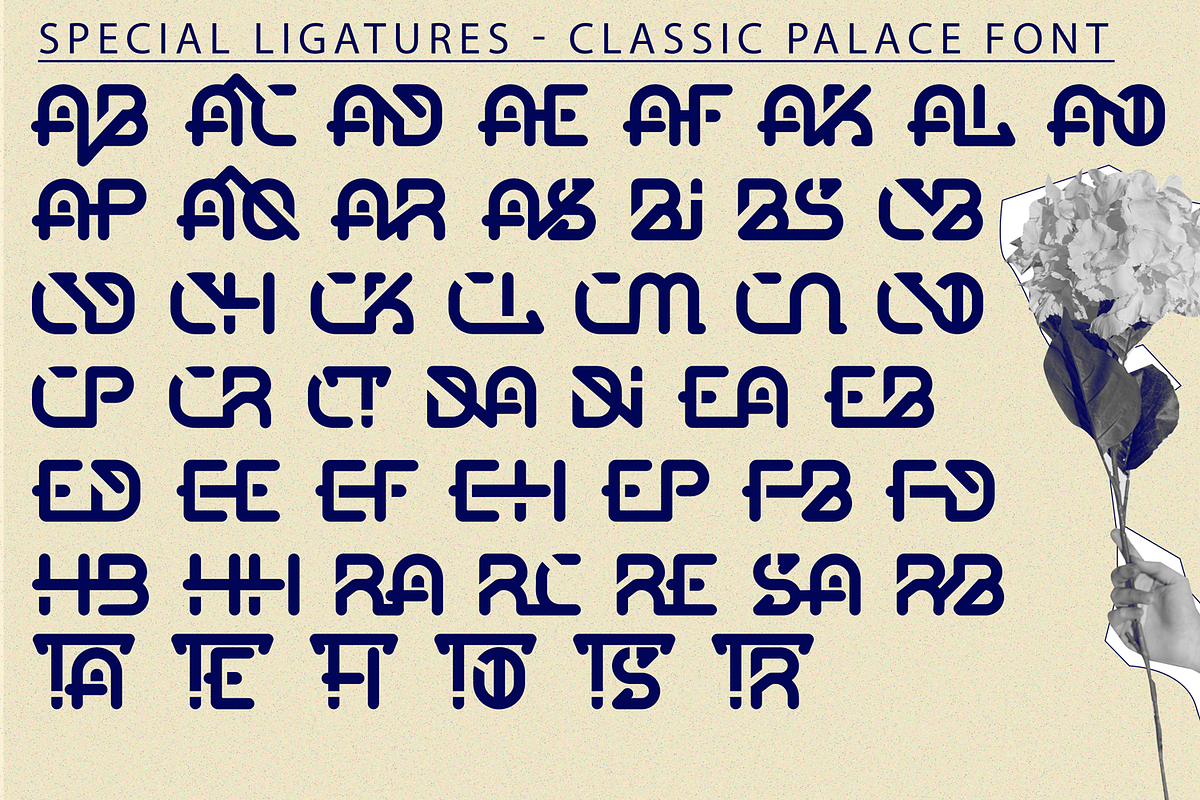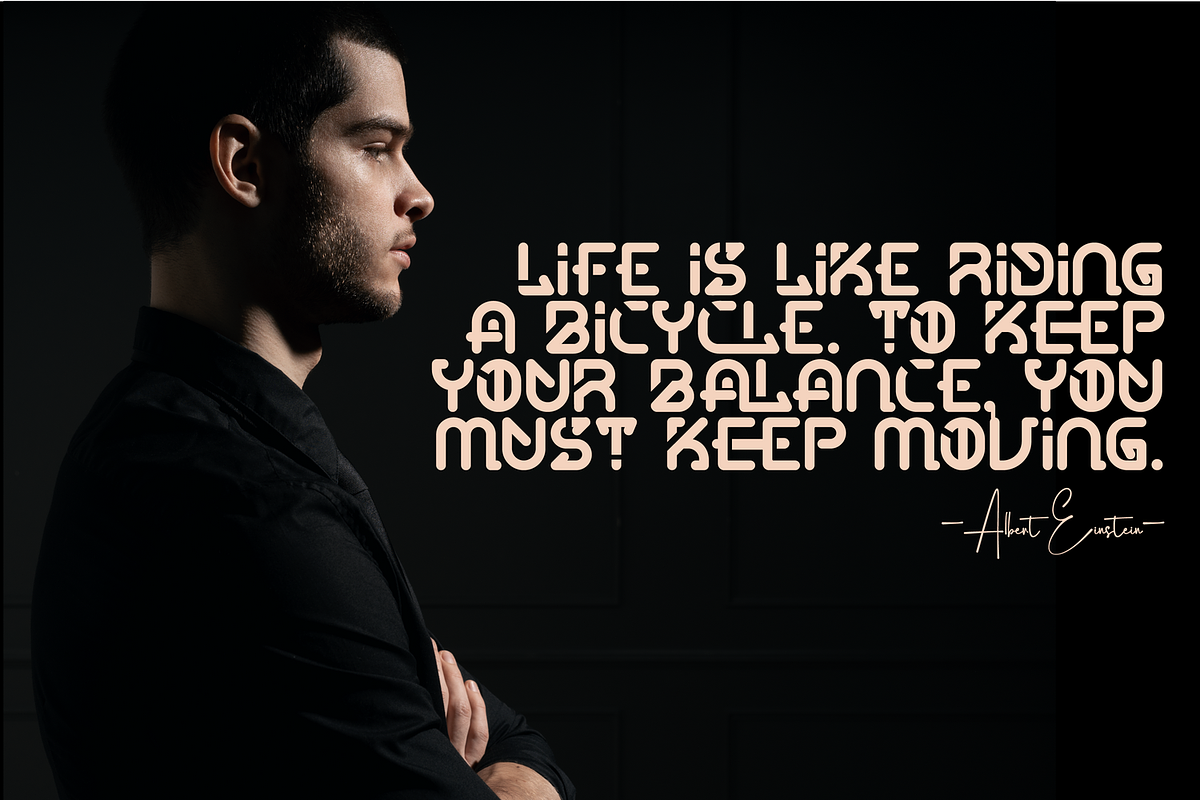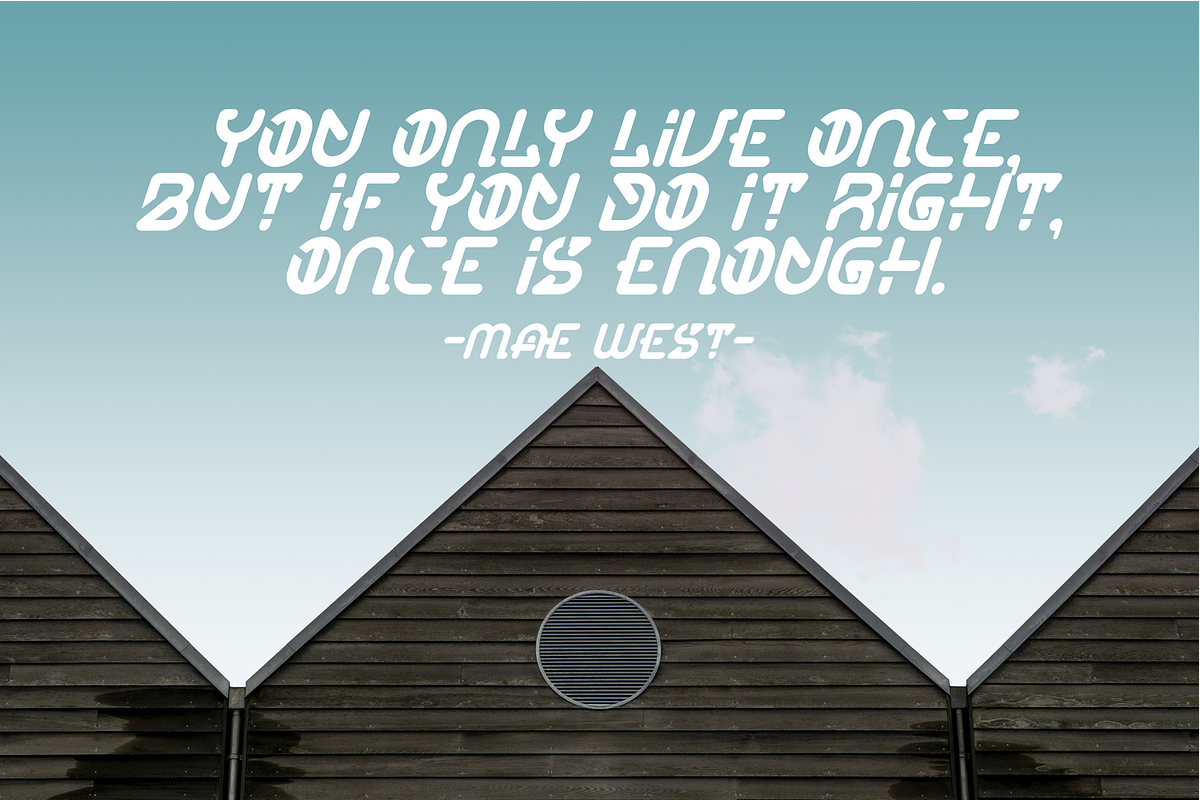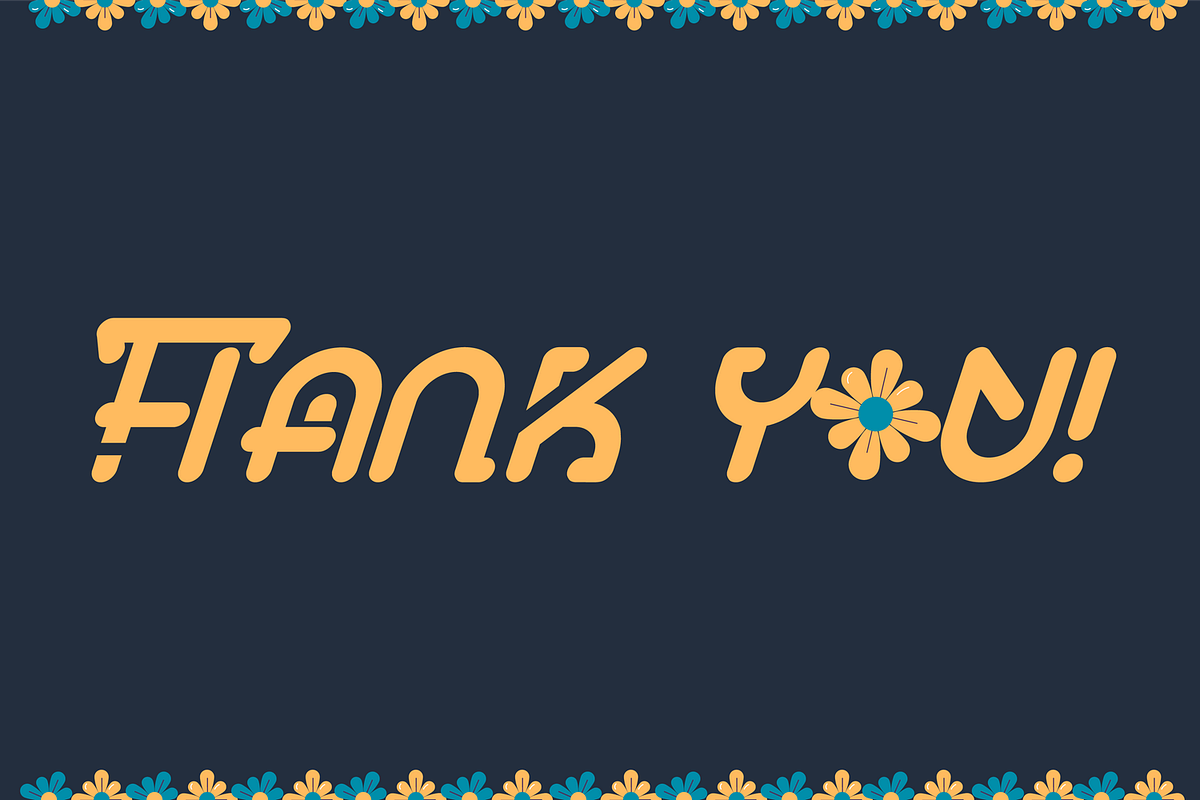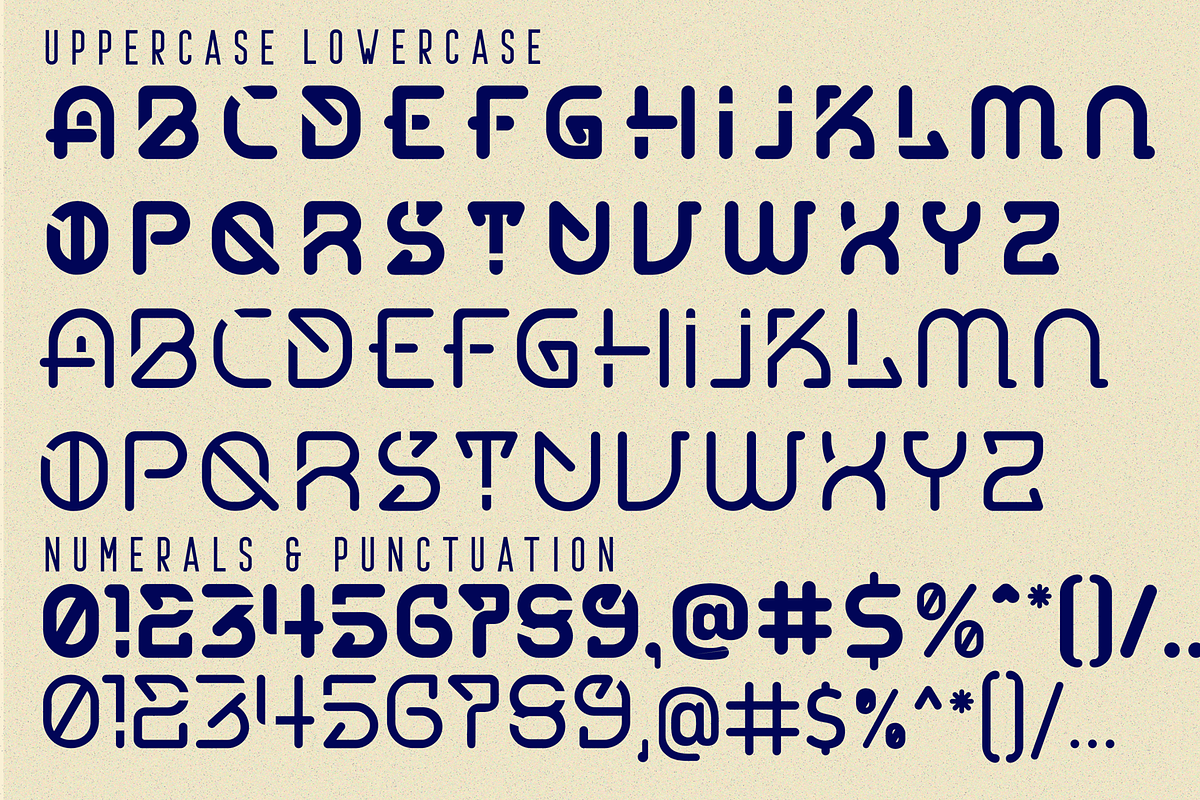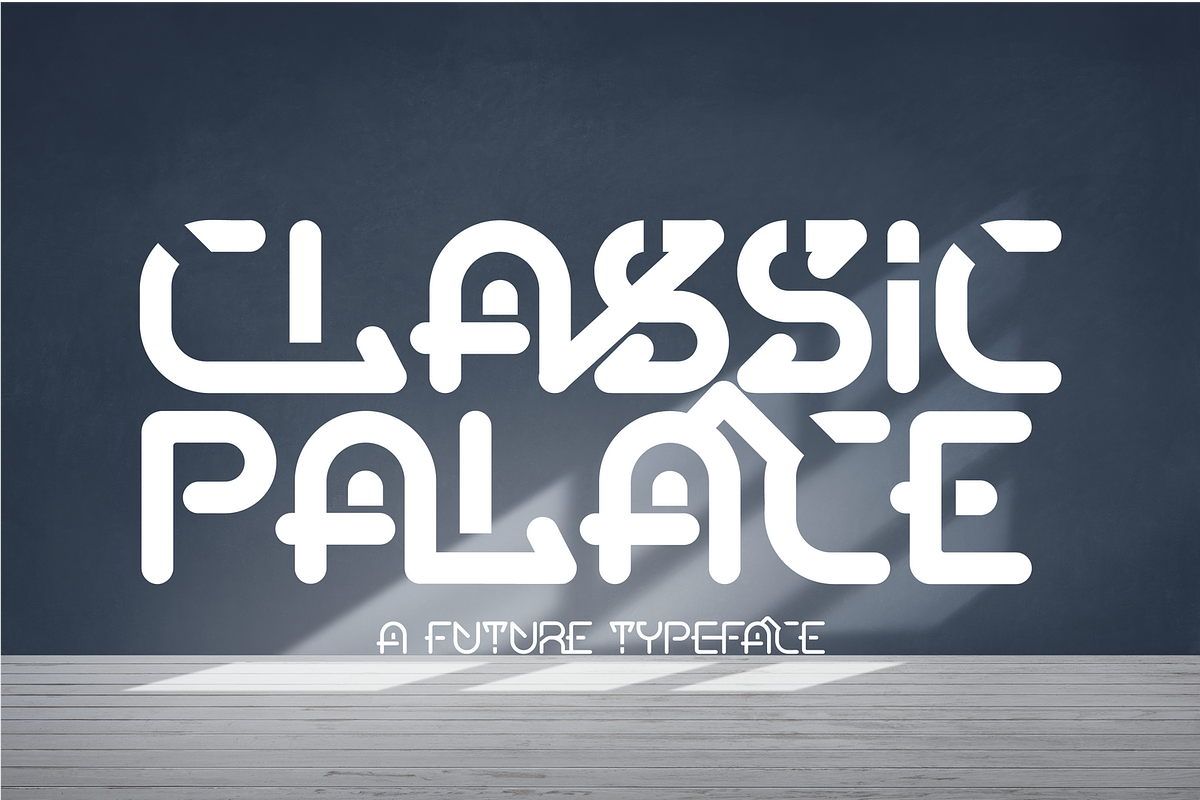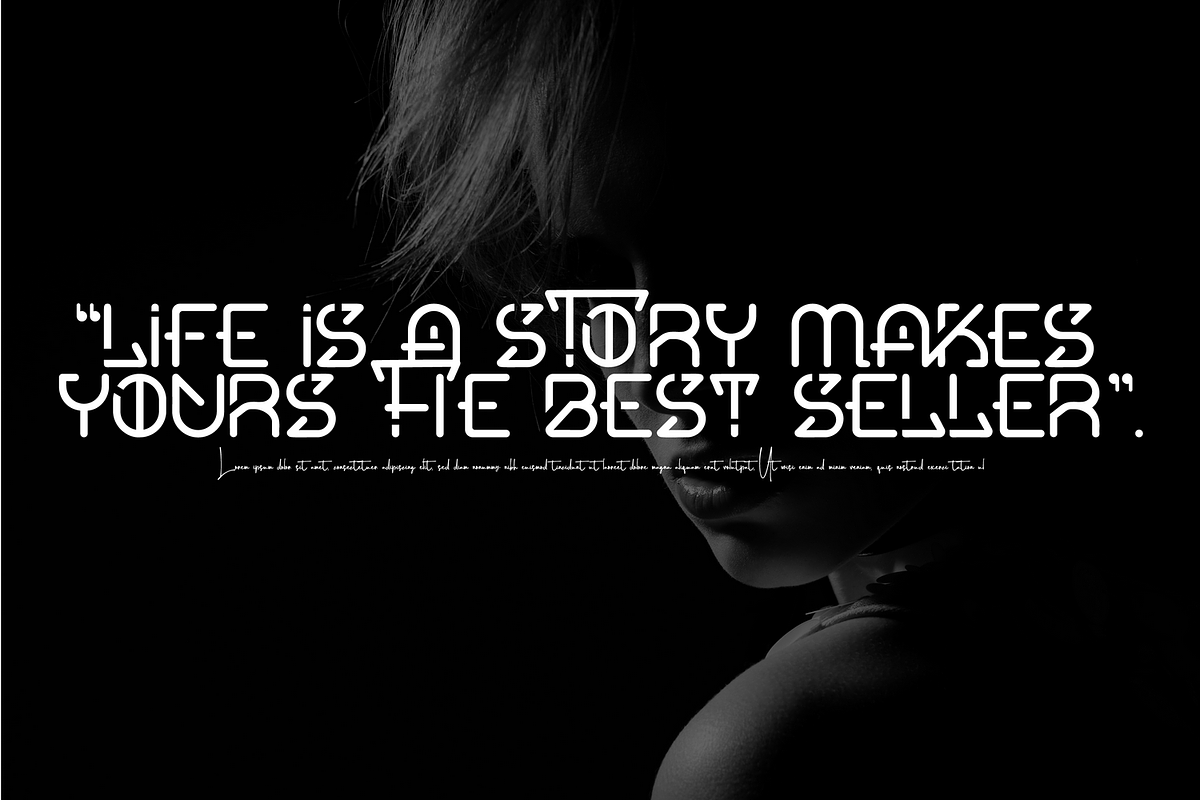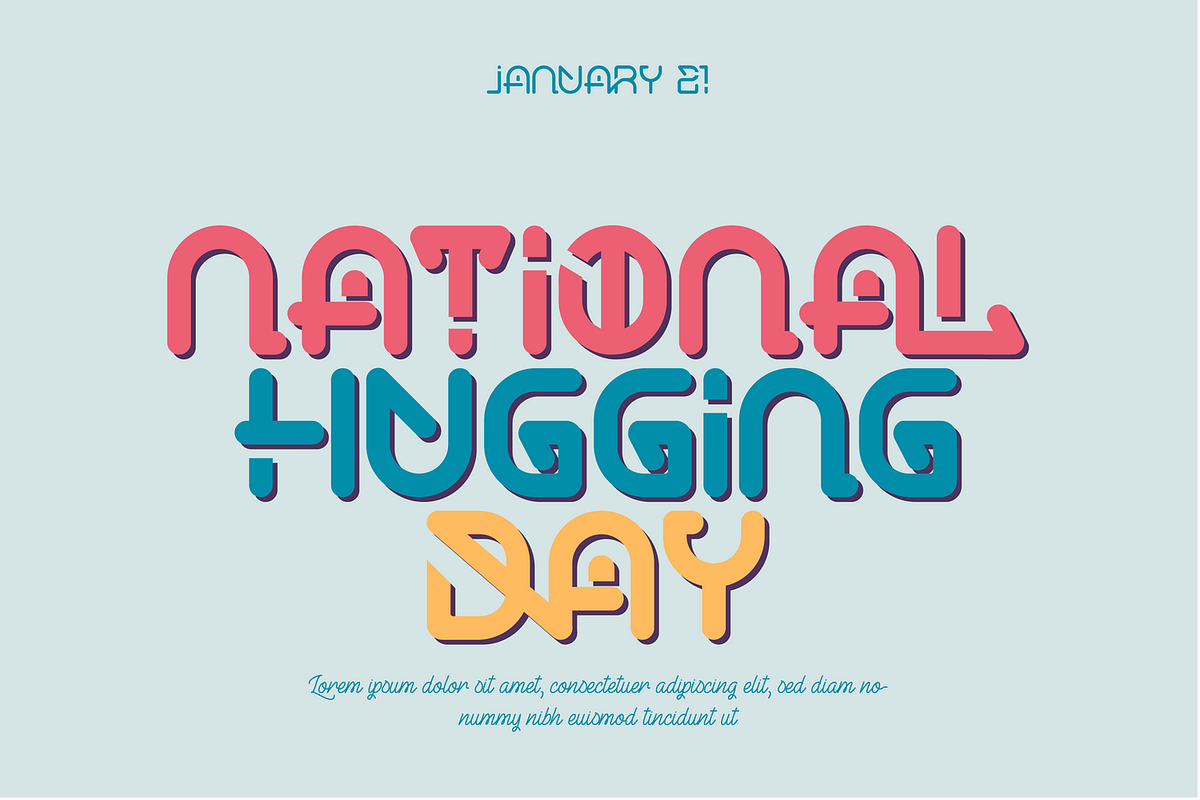
CLASSIC PALACE - Futuristic Font
CLASSIC PALACE Font - a futuristic science fiction font. It's font which helping to create futuristic hi-tech atmosphere and style. It is good looking as header and as text both. Perfect for technology, sci-fi, science and all kinds of futuristic projects. Create science fiction posters & flyers, website headers, high-tech logos and so much more!
To make it look more unique, here we prepared some ligatures:
AB AC AD AE AF AK AL AO AP AQ AR AS BI BS CB CD CH CK CL CM CN CO CP CR CT DA DI EA EB AD EE EF EH EP FB FD HB HH RA RC RE SA RB TA TE TI TL TO TS TR